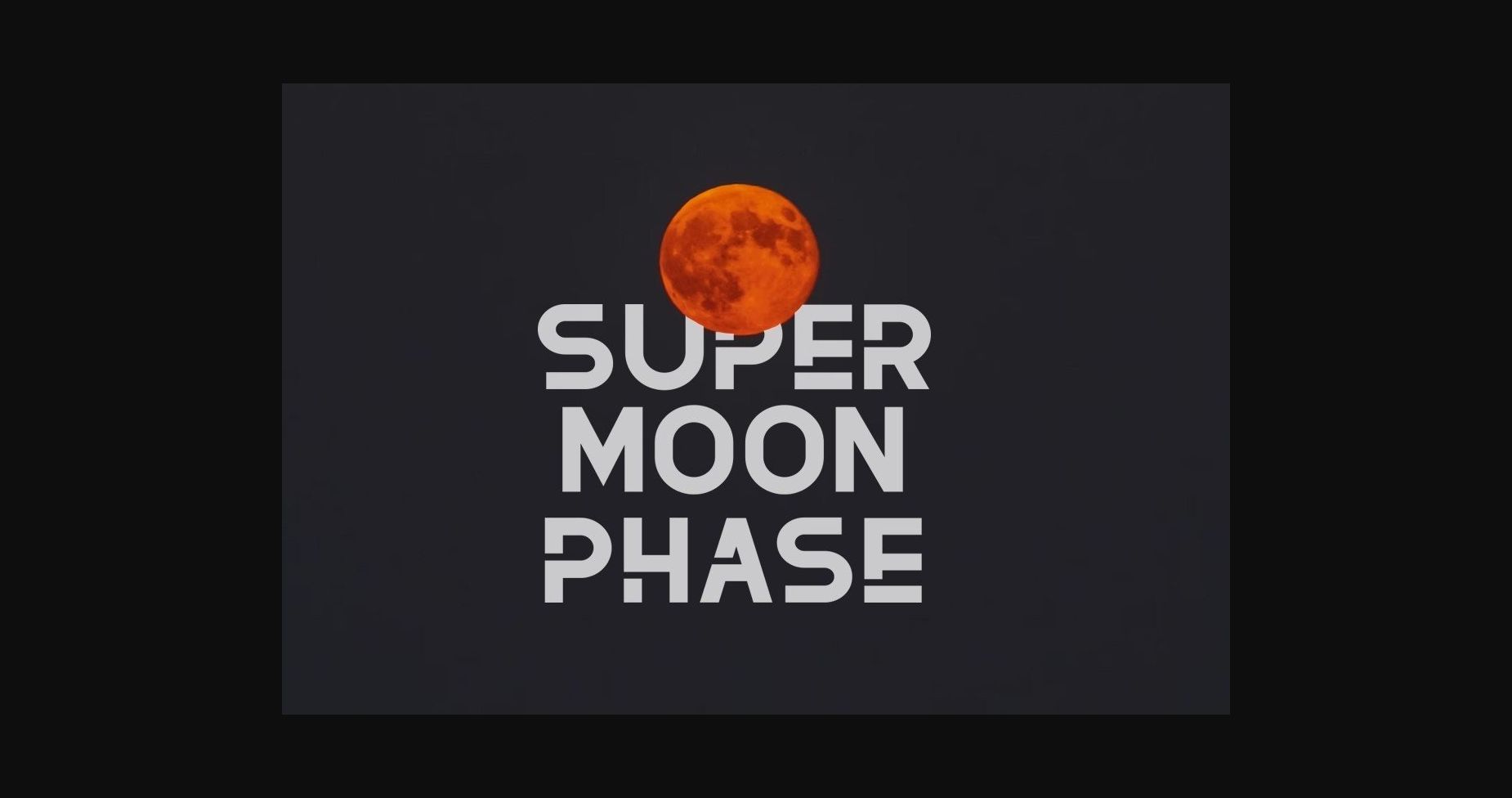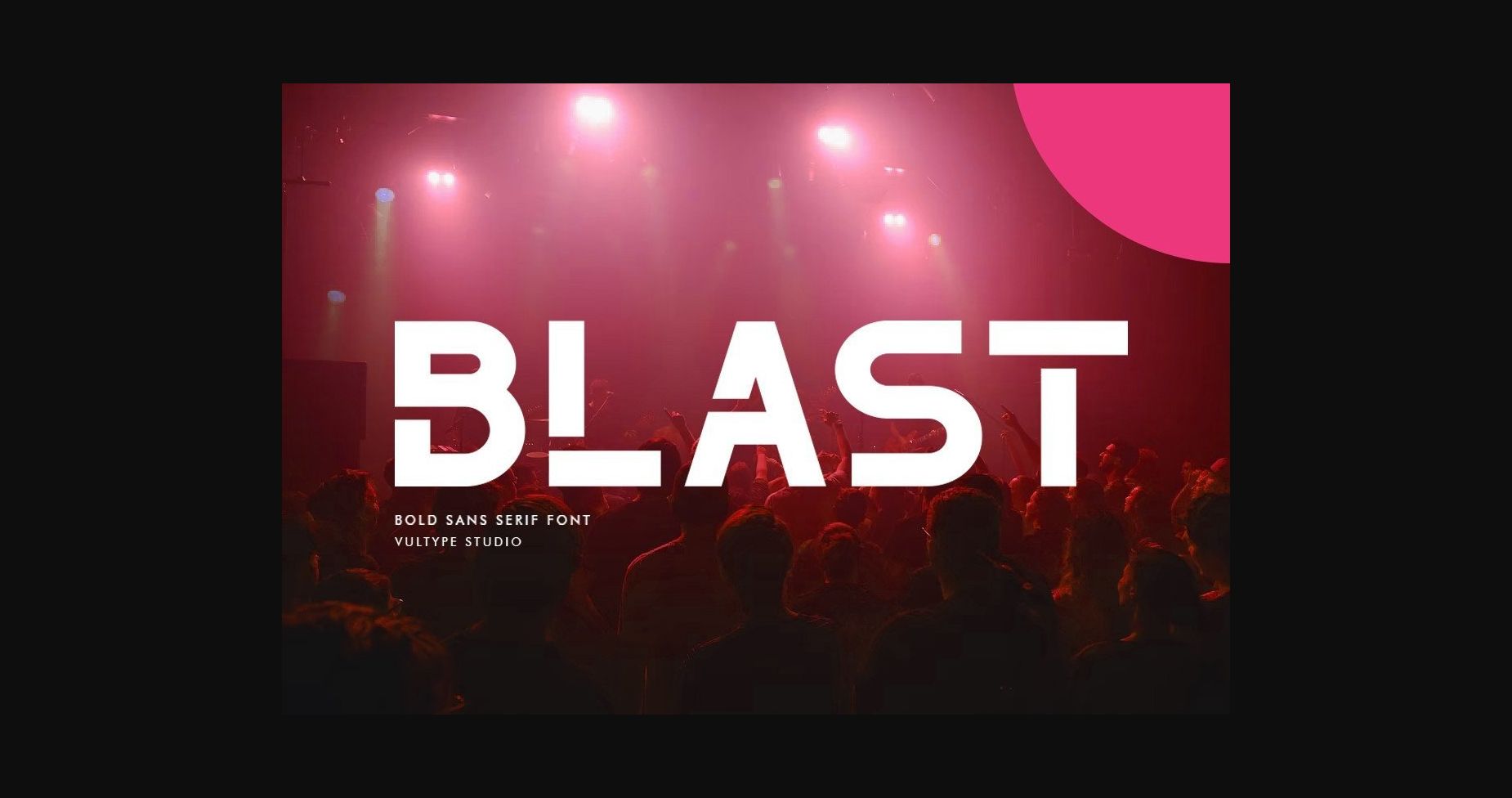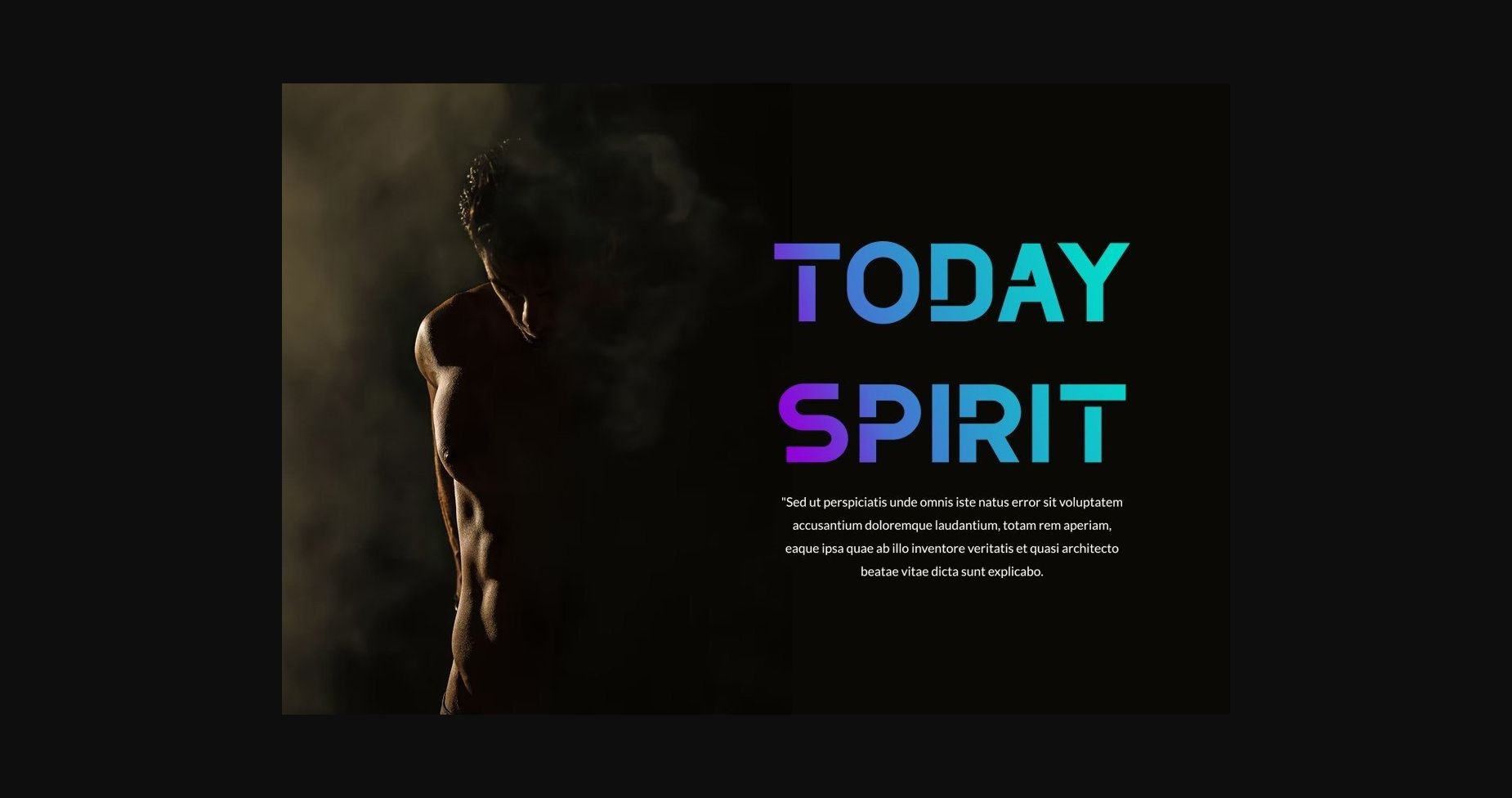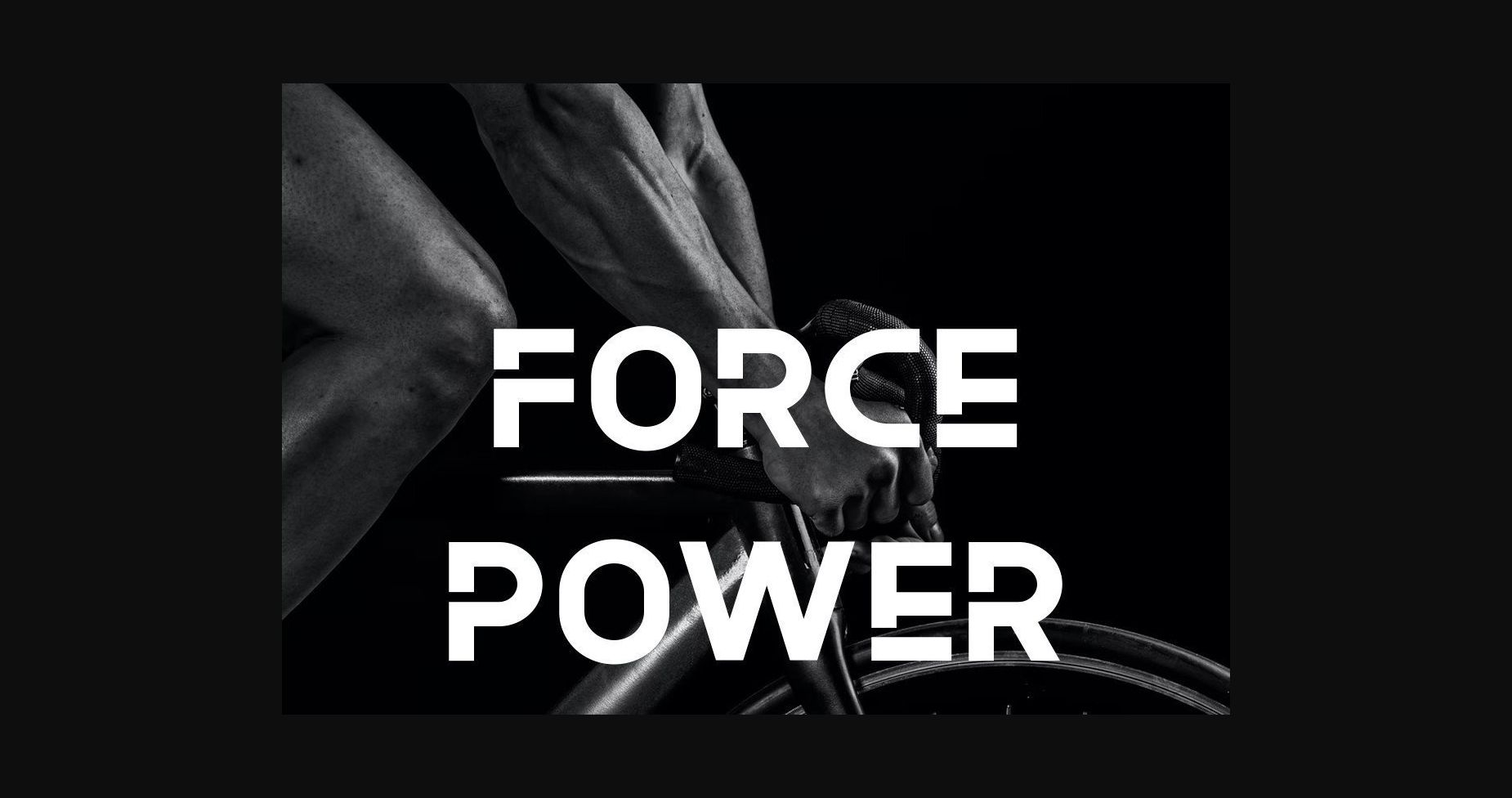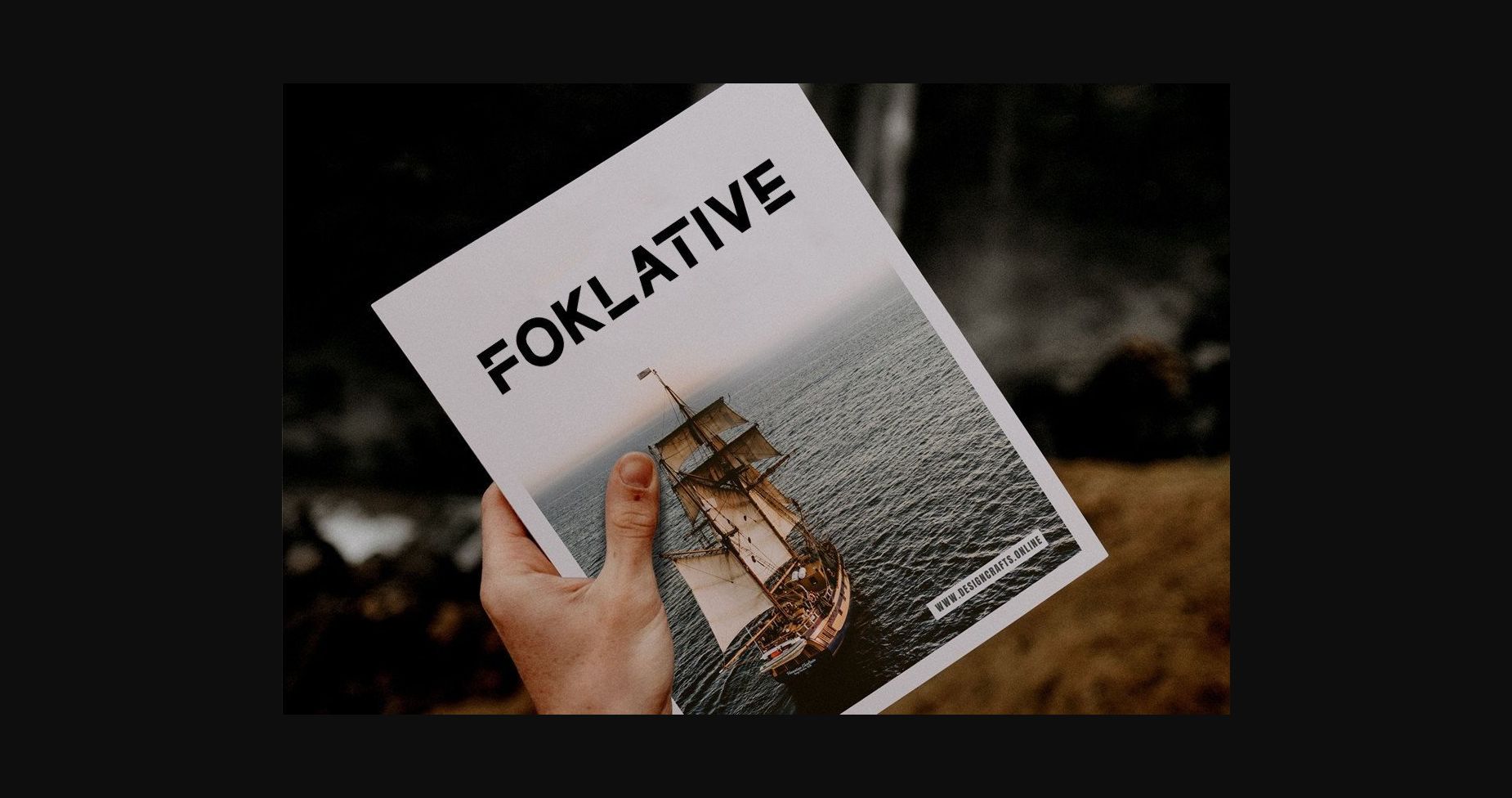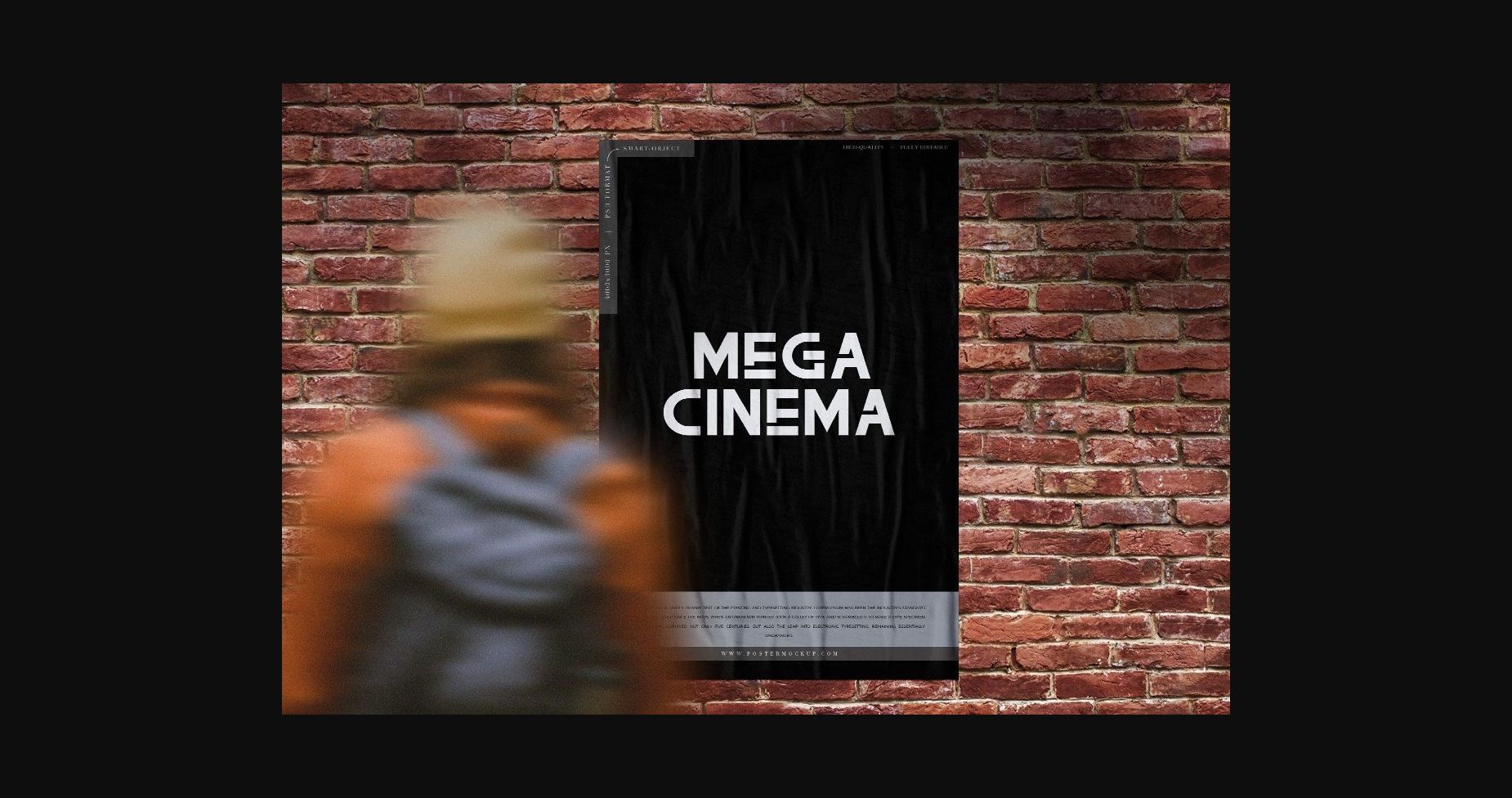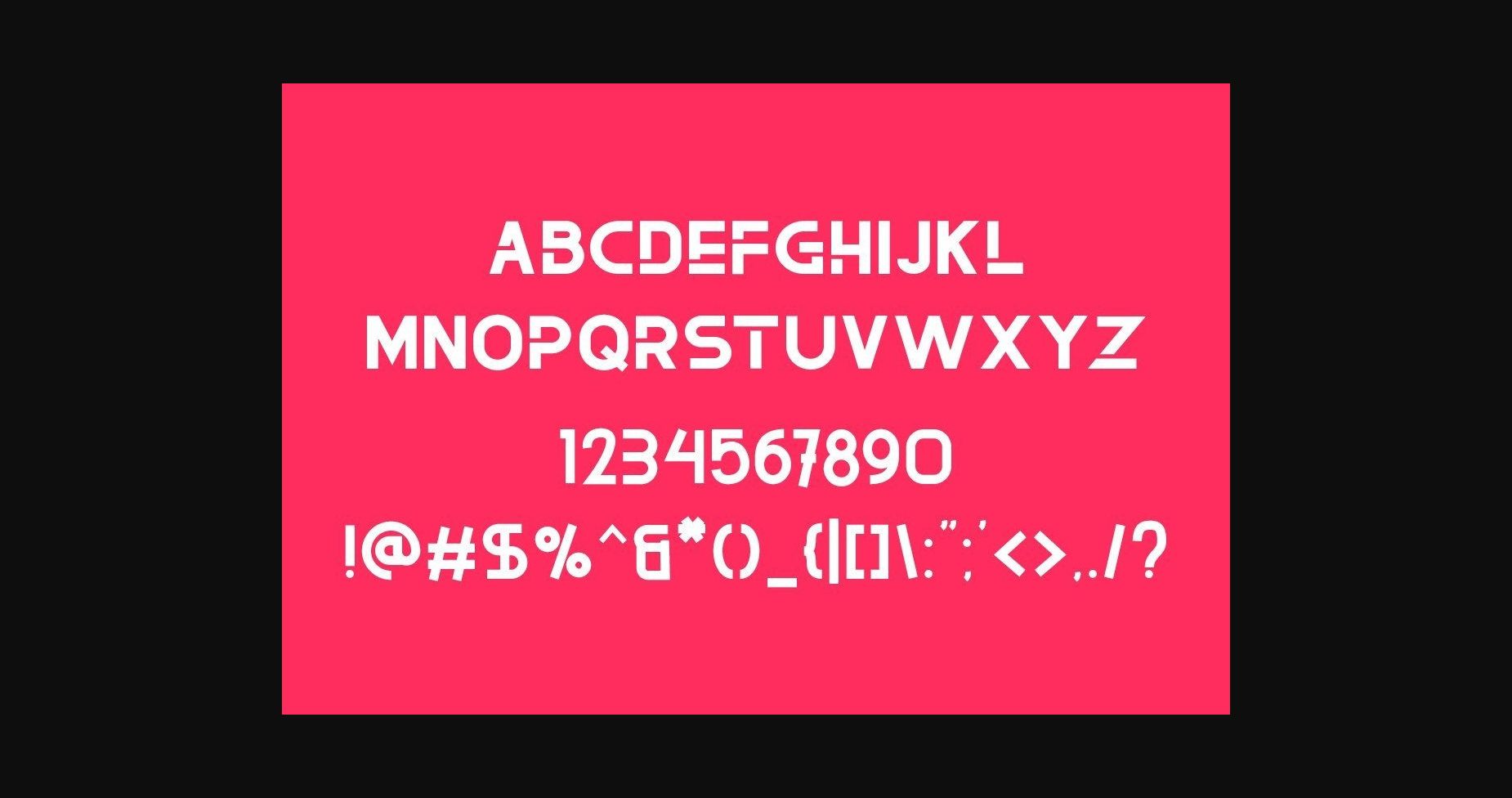
About The Blast Font
The Blast is a sans-based font with unique lowercase that will make your design look futuristic and modern. You can use this font for any purpose, especially to make logotypes.
You can mix and match the uppercase and lowercase to make your logo more readable. This font also has special alternates that will make your design more of a stand-out!